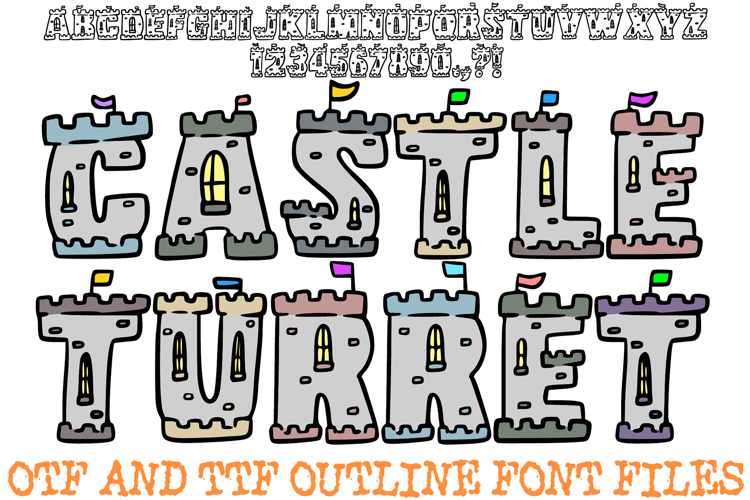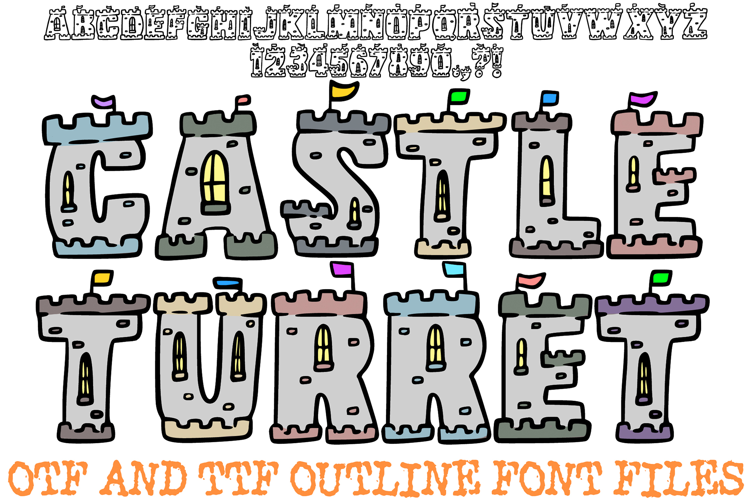
Defend your designs with the legendary charm of the Castle Turret Font! This hand-drawn display alphabet transforms every letter and number into a fortified stone stronghold, complete with detailed battlements, arched windows, and tiny fluttering flags. It is the ultimate choice for fairytale-themed nursery decor, fantasy tabletop gaming assets, medieval festival posters, and children's storybook titles.
The "storybook kingdom" aesthetic blends architectural detail with a playful, sketchy silhouette, making it perfect for both creative branding and DIY craft projects. Whether you are designing a sign for a "little knight’s" bedroom or creating assets for a fantasy world map, the Castle Turret Font builds a sense of wonder into every word.
Why This Font Rules the Realm:
Architectural Stone Details: Each character is built like a tower, featuring etched stone blocks and defensive battlements.
Royal Flag Accents: Tiny, hand-drawn flags atop the turrets add a sense of movement and celebration to the alphabet.
Whimsical Sketch Style: The clean yet "doodled" outlines maintain a warm, hand-crafted feel that is perfect for young audiences.